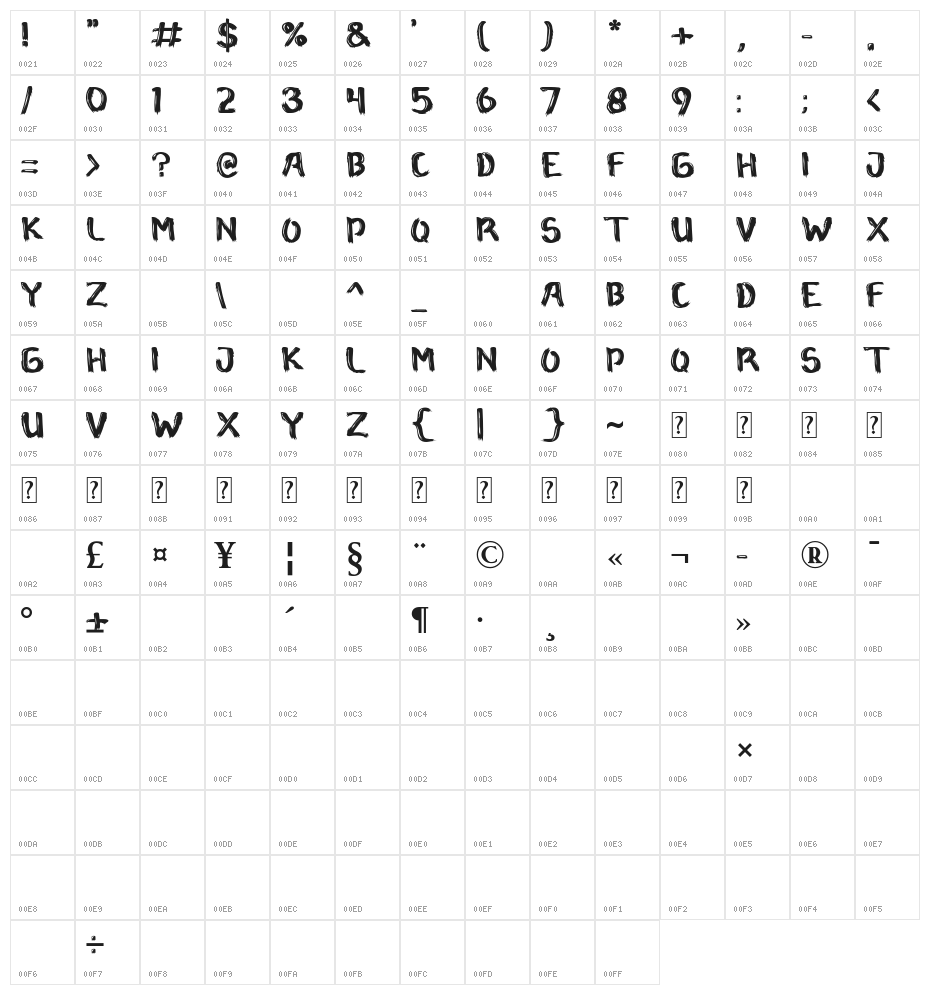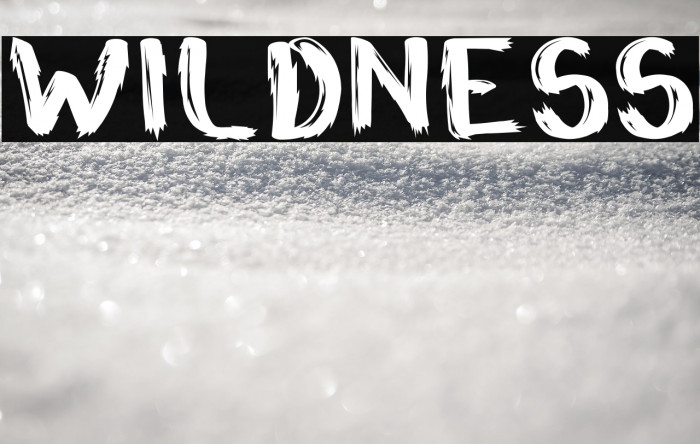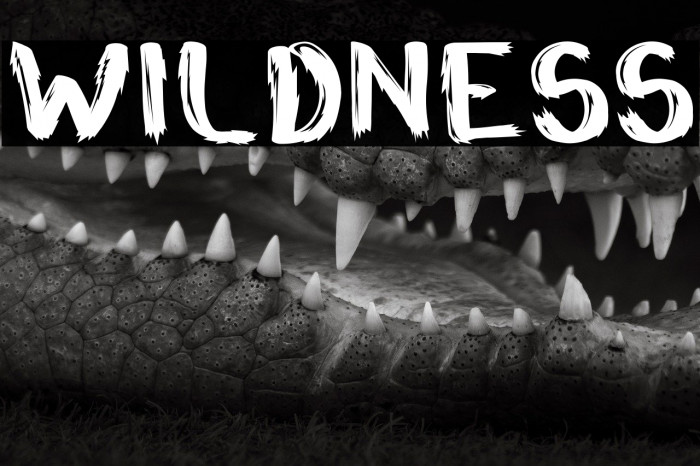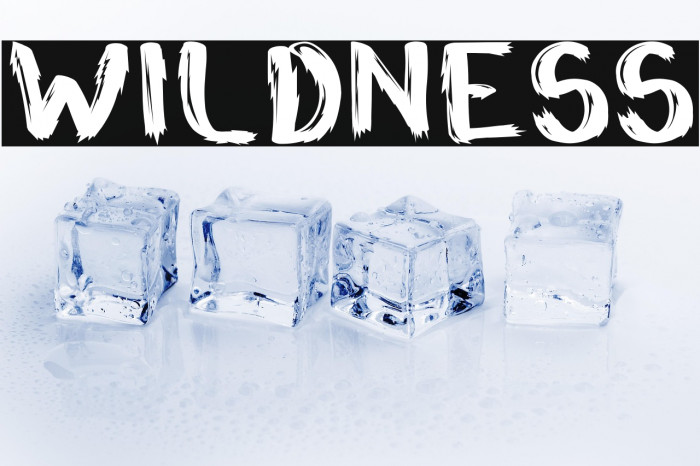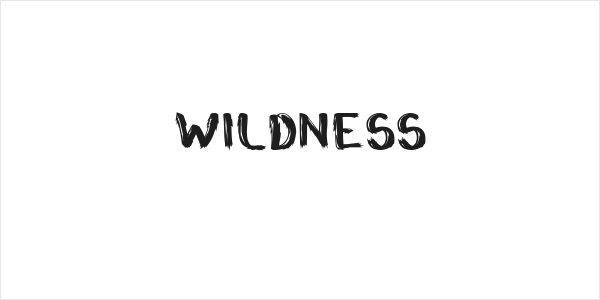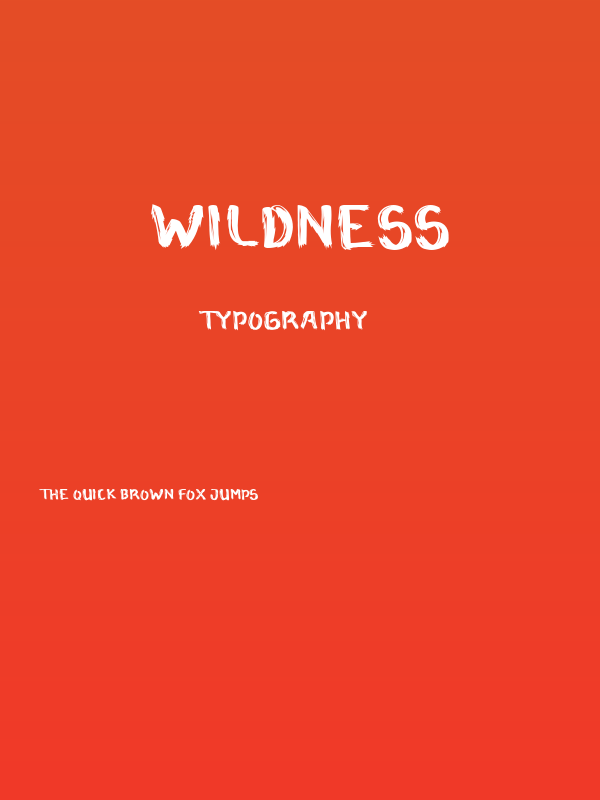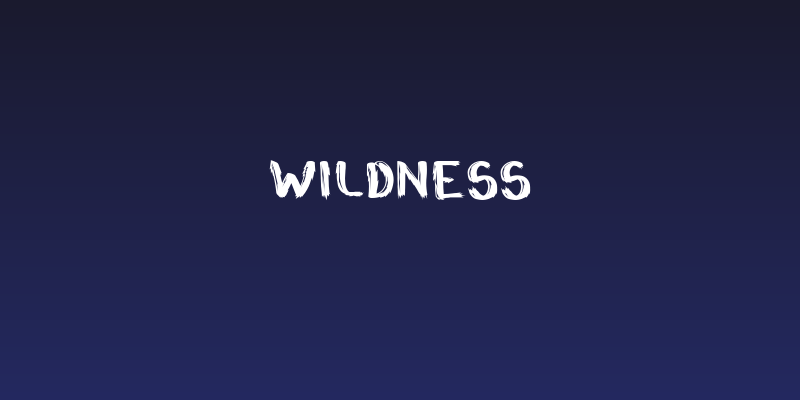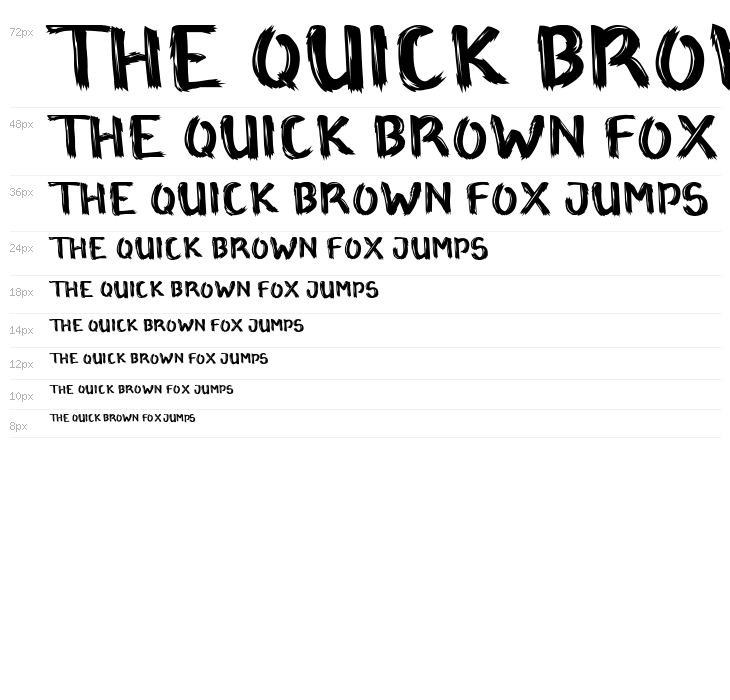
Wildness Font
Wildness Description
This font exudes a raw, untamed energy with its brush-like strokes and uneven edges, creating a sense of movement and dynamism. The characters are bold and impactful, with a slightly irregular form that adds to its wild aesthetic. The uppercase and lowercase letters maintain a consistent style, while the numbers and special characters integrate seamlessly, enhancing the font's cohesive look. The overall appearance is both artistic and edgy, making it suitable for projects that require a strong visual statement.
| Proposed Projects | Ideal for posters, album covers, branding for extreme sports, or any project needing a bold, artistic touch. |